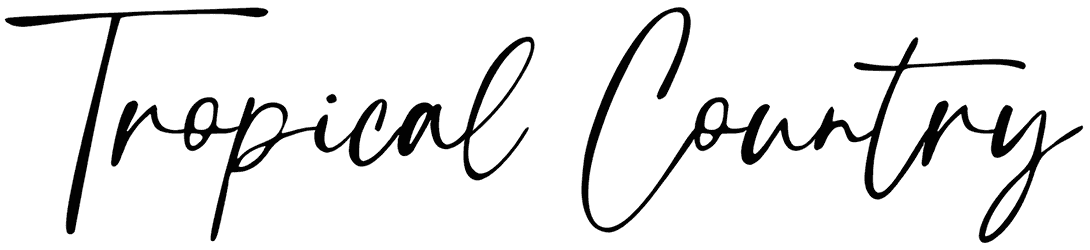
Tropical Country Font
As a result of its adaptable letters and organic shape, this handwritten font is excellent for casual-vibe projects such as advertisements, textbooks, packaging, apparel, etc. Although it may be difficult to read, this tropical font could be just the thing to breathe new life into otherwise dull images.